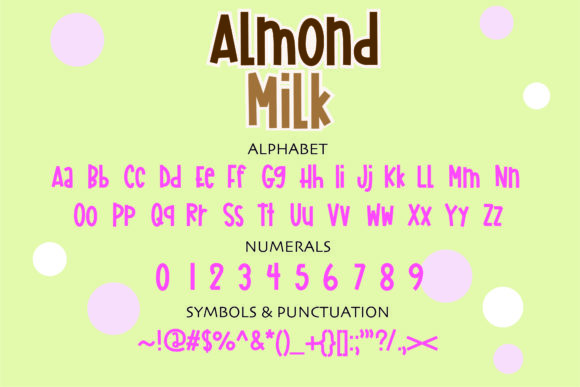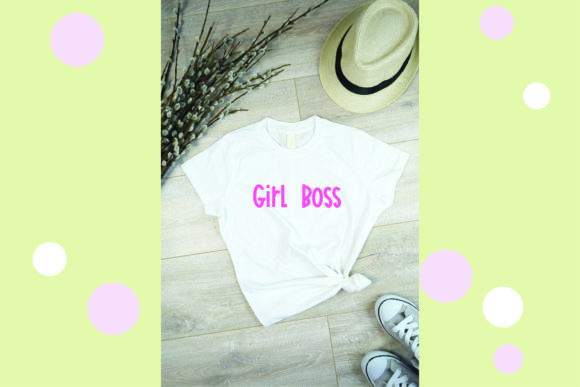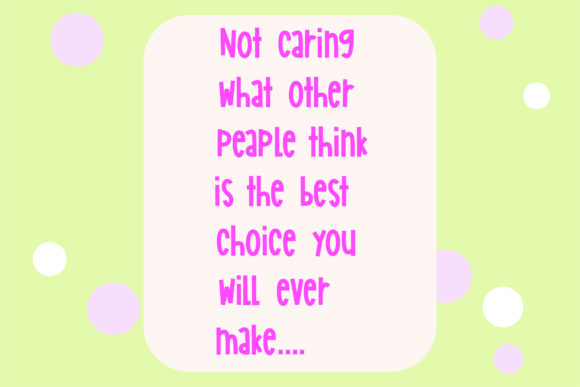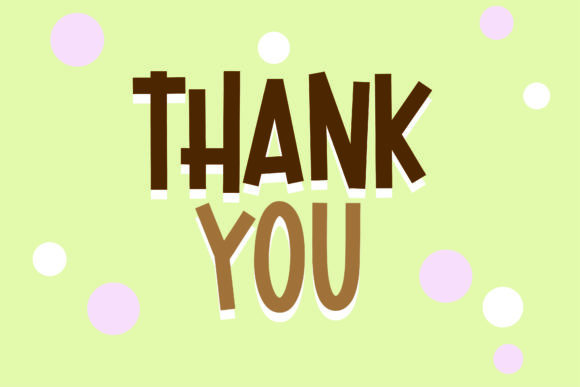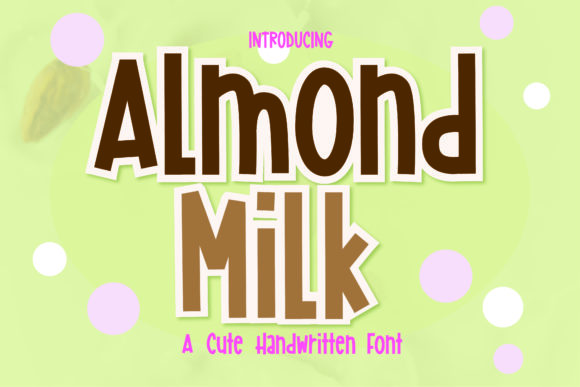
Introducing Almond Milk Font: The Perfect Addition to Your Design Collection
Are you tired of using the same old fonts in your designs? Look no further! Almond Milk Font is a cute and fun display font that is sure to add a lovely touch to any creation. Whether you’re working on a cartoon-related design, a children’s game, or just want to add some whimsy to your project, Almond Milk Font is an amazing choice.
What Makes Almond Milk Font So Special?
Almond Milk Font is a unique and playful font that is perfect for designers and crafters who want to add a touch of fun and personality to their work. The font features a distinctive, hand-drawn style with a mix of rounded and smooth lines, giving it a friendly and approachable feel. The letters are carefully crafted to create a sense of movement and energy, making it perfect for designs that require a playful and youthful vibe.
Uses for Almond Milk Font
Almond Milk Font is incredibly versatile and can be used in a wide range of design projects, including:
- Cartoon-related designs: The font’s playful and whimsical style makes it perfect for cartoons, comics, and animation projects.
- Children’s games: The font’s fun and friendly feel makes it ideal for children’s games, puzzles, and educational materials.
- Branding and packaging: Almond Milk Font can add a touch of personality to your brand and packaging designs, making them stand out from the crowd.
- Invitations and greeting cards: The font’s playful style makes it perfect for invitations, greeting cards, and other paper crafts.
Why Designers and Crafters Love Almond Milk Font
Designers and crafters love Almond Milk Font for many reasons, including:
- Its unique and playful style: The font’s distinctive style sets it apart from more traditional fonts and adds a touch of personality to any design.
- Its versatility: Almond Milk Font can be used in a wide range of design projects, from cartoons and children’s games to branding and packaging.
- Its ease of use: The font is easy to read and works well in a variety of sizes, making it perfect for designs that require a clear and legible font.
Tips for Using Almond Milk Font
Here are a few tips for using Almond Milk Font in your designs:
- Use it sparingly: Almond Milk Font is a display font and works best when used sparingly. Use it to add emphasis or create a focal point in your design.
- Pair it with other fonts: Almond Milk Font pairs well with a variety of other fonts, including sans-serif fonts and script fonts. Experiment with different pairings to find the one that works best for your design.
- Experiment with colors: Almond Milk Font looks great in a variety of colors, from bright and bold to soft and pastel. Experiment with different colors to find the one that works best for your design.
| Font Name | Almond Milk Font |
| Author | GoodMoodType |
Almond Milk Font is a unique and playful font that is perfect for designers and crafters who want to add a touch of fun and personality to their work. With its distinctive style, versatility, and ease of use, it’s an amazing choice for a wide range of design projects. Whether you’re working on a cartoon-related design, a children’s game, or just want to add some whimsy to your project, Almond Milk Font is sure to be a hit.